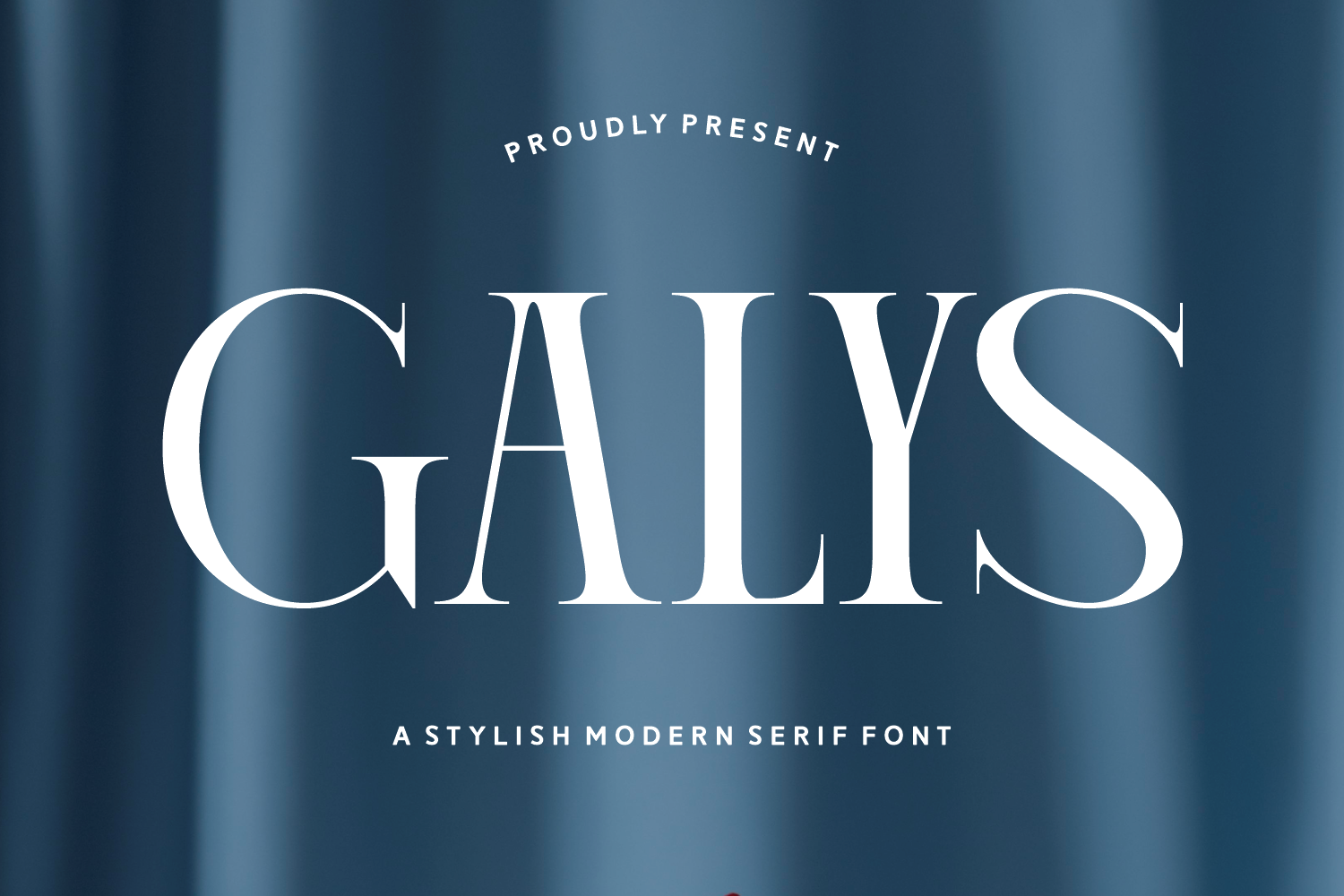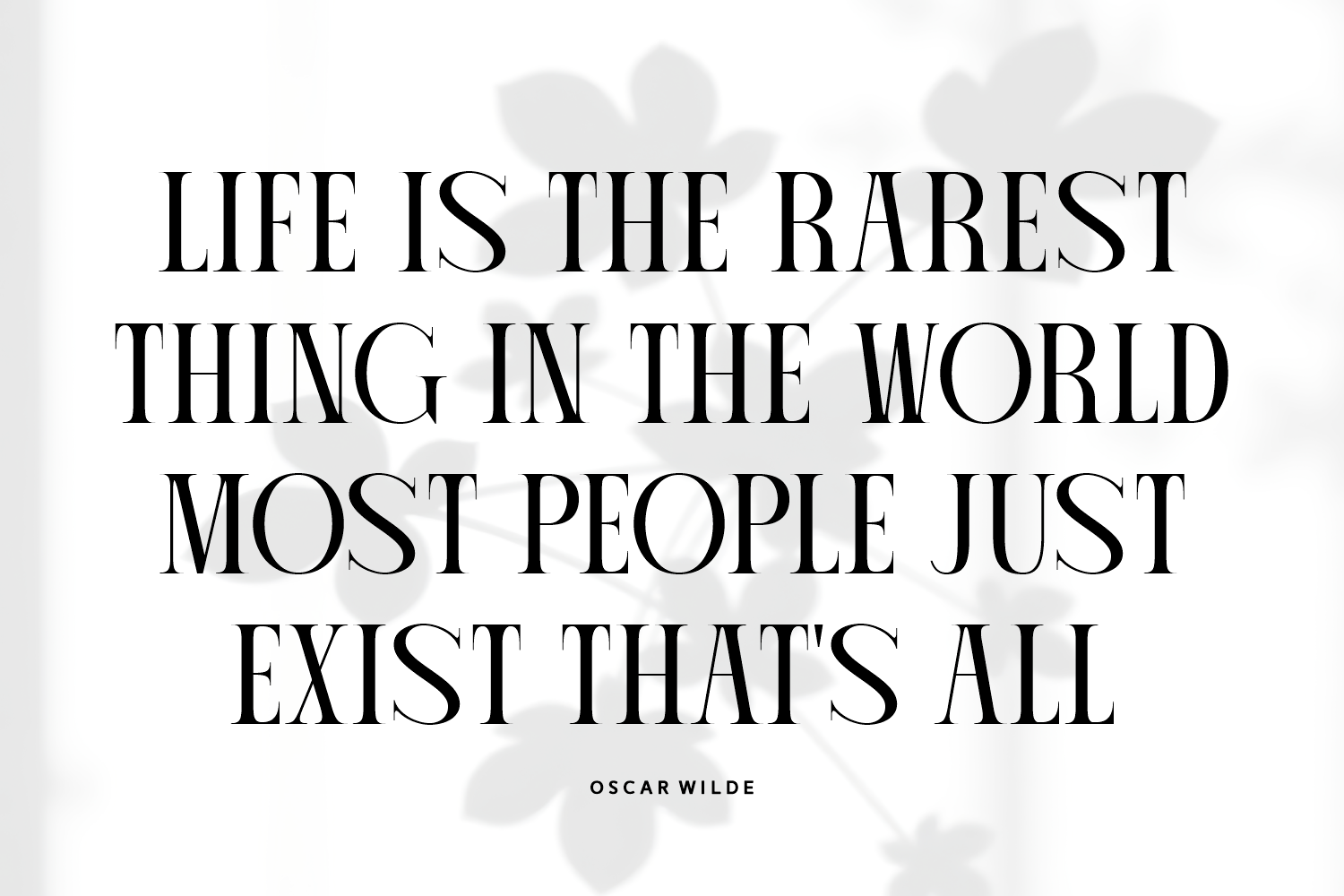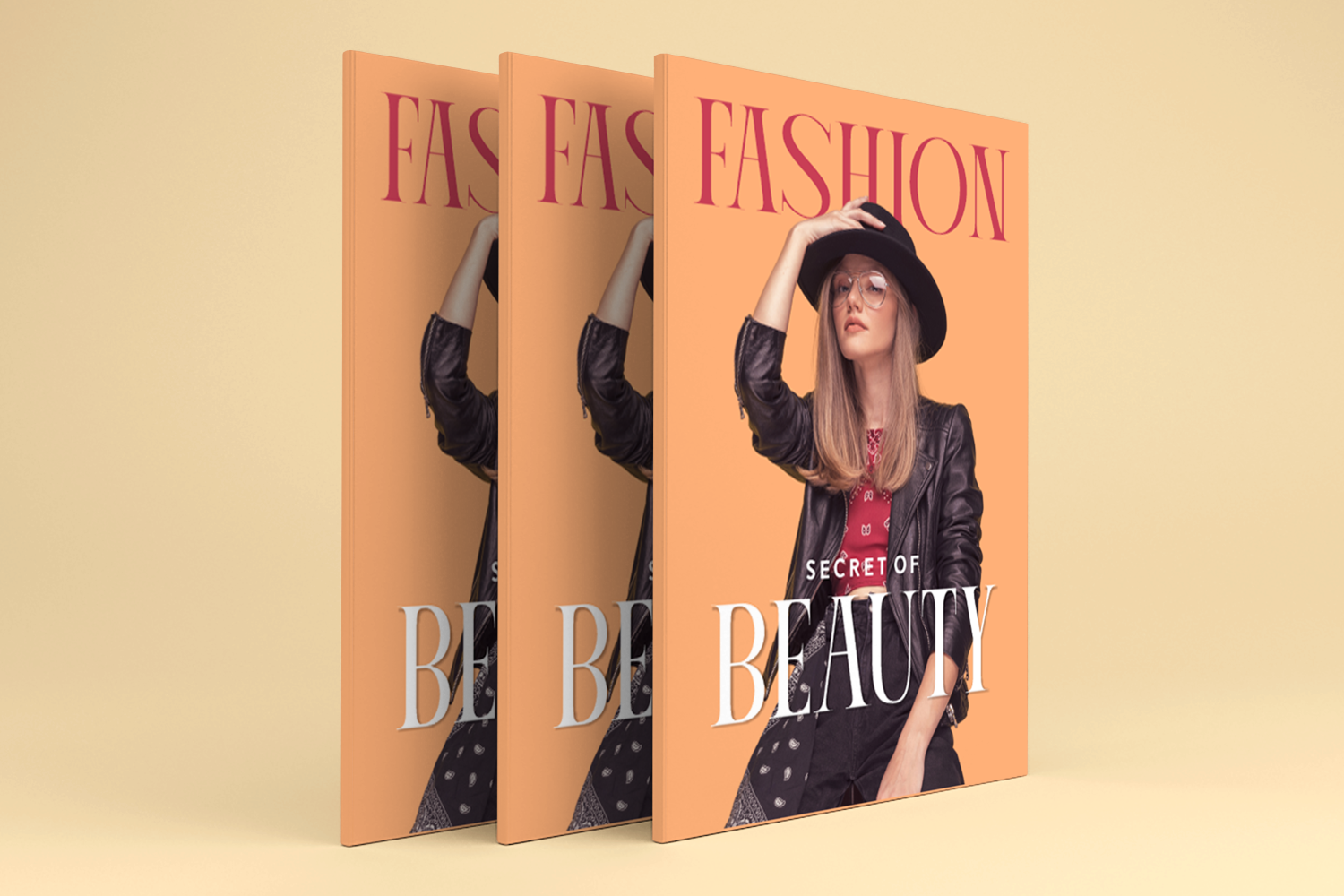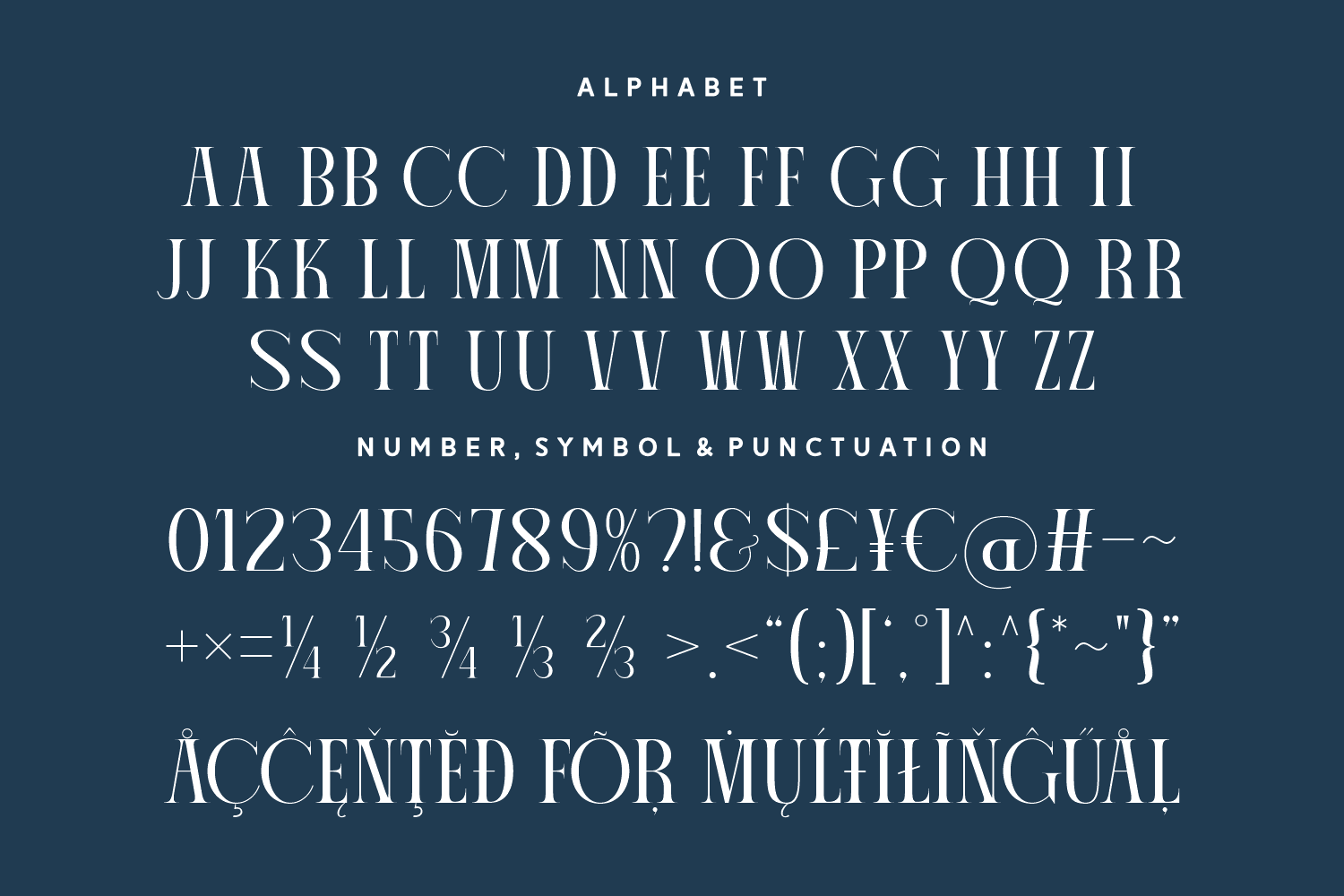
Galys is a luxurious serif font crafted for high-end design. With tall, narrow forms and stylish details, it brings an air of exclusivity and finesse—perfect for fashion, branding, and upscale editorial projects.